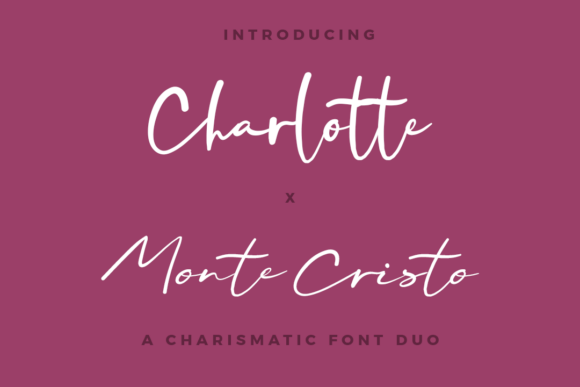
Introducing Charlotte and Monte Cristo – A Delightful Duo of Cursive, Handwritten Fonts
In the world of typography, few font combinations can evoke the same level of emotion and elegance as the Charlotte X Monte Cristo duo. This beautiful pair of cursive, handwritten fonts is designed to transport you to a poetic realm where every curve tells a story, and every line creates an emotion. With Charlotte’s feminine grace and Monte Cristo’s classic romantic allure, this duo is perfect for anyone looking to add a touch of sophistication and whimsy to their designs.
Meet Charlotte: The Feminine and Elegant Font
Charlotte is a stunning example of a feminine, cursive script font. With its delicate lines and flowing curves, this font is reminiscent of soft-spoken love letters and heartfelt journal entries. Its elegant design makes it perfect for use in a variety of projects, from wedding invitations and romantic getaways to fashion blogs and lifestyle magazines.
One of the standout features of Charlotte is its beautiful, hand-crafted look. Each letter is carefully designed to create a sense of movement and fluidity, giving the font a dynamic and expressive feel. Whether you’re looking to add a touch of whimsy to your designs or create a more formal, sophisticated look, Charlotte is an excellent choice.
Meet Monte Cristo: The Classic Romantic Font
Monte Cristo, on the other hand, adds a dash of classic romantic allure to the Charlotte X Monte Cristo duo. This font is inspired by the timeless elegance of 19th-century typography, with its intricate lines and ornate flourishes. With Monte Cristo, you can add a touch of drama and sophistication to your designs, making it perfect for use in projects such as movie posters, book covers, and luxury branding.
Like Charlotte, Monte Cristo is also a hand-crafted font, with each letter carefully designed to create a sense of history and tradition. Its classic design makes it an excellent choice for anyone looking to evoke a sense of nostalgia and romance in their designs.
Key Features of the Charlotte X Monte Cristo Duo
- Cursive, handwritten fonts: Both Charlotte and Monte Cristo are cursive, handwritten fonts with a flowing, dynamic feel.
- Feminine and elegant design: Charlotte’s feminine design makes it perfect for use in projects that require a touch of elegance and sophistication.
- Classic romantic allure: Monte Cristo’s classic design adds a dash of romance and drama to any project.
- Hand-crafted look: Both fonts have a beautiful, hand-crafted look that gives them a unique and expressive feel.
- Perfect for a variety of projects: The Charlotte X Monte Cristo duo is perfect for use in a range of projects, from wedding invitations and romantic getaways to fashion blogs and luxury branding.
Using the Charlotte X Monte Cristo Duo in Your Designs
The Charlotte X Monte Cristo duo is incredibly versatile, making it perfect for use in a wide range of projects. Here are a few examples of how you can use these beautiful fonts in your designs:
- Wedding invitations and romantic getaways: Use Charlotte’s feminine design to create beautiful wedding invitations, or pair it with Monte Cristo for a more dramatic and romantic look.
- Fashion blogs and lifestyle magazines: Add a touch of elegance and sophistication to your fashion blog or lifestyle magazine with Charlotte’s flowing curves and Monte Cristo’s classic design.
- Movie posters and book covers: Use Monte Cristo’s classic design to create eye-catching movie posters and book covers that evoke a sense of nostalgia and romance.
- Luxury branding: Pair Charlotte and Monte Cristo to create a luxurious and sophisticated brand identity that exudes elegance and refinement.
Tips for Working with the Charlotte X Monte Cristo Duo
Here are a few tips for working with the Charlotte X Monte Cristo duo:
- Experiment with different font combinations: Don’t be afraid to experiment with different font combinations to find the perfect look for your project.
- Use the fonts in combination with images: The Charlotte X Monte Cristo duo looks stunning when paired with beautiful images, so don’t be afraid to get creative and experiment with different design combinations.
- Pay attention to typography hierarchy: Make sure to pay attention to typography hierarchy when working with the Charlotte X Monte Cristo duo, using different font sizes and styles to create a clear visual hierarchy.
The Charlotte X Monte Cristo duo is a beautiful pair of cursive, handwritten fonts that are perfect for anyone looking to add a touch of elegance and sophistication to their designs. With Charlotte’s feminine design and Monte Cristo’s classic romantic allure, this duo is incredibly versatile and can be used in a wide range of projects. Whether you’re looking to create a romantic wedding invitation or a luxurious brand identity, the Charlotte X Monte Cristo duo is an excellent choice.